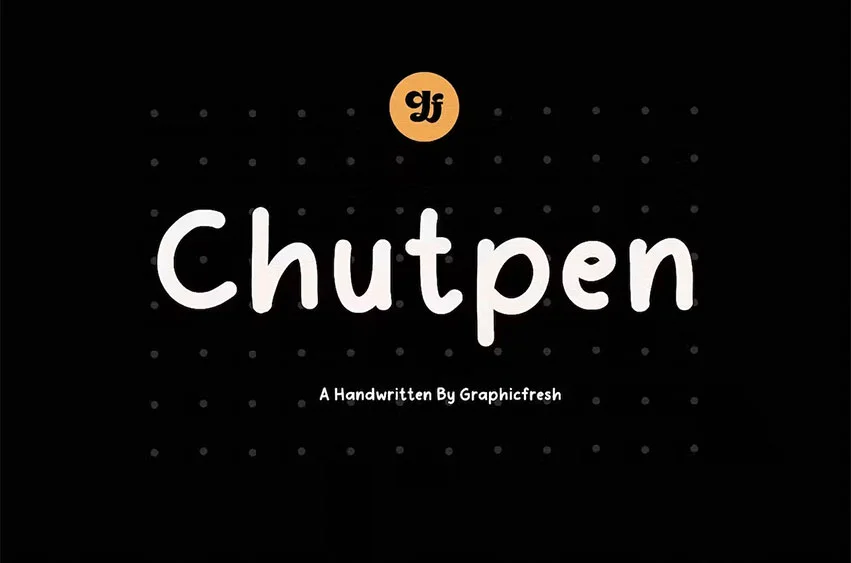
Chutpen Font The Handwriting Editorial Font. Introducing our latest product, the Handcrafted Elegance font collection, designed specifically for the editorial industry. This meticulously crafted assortment of hand-drawn fonts brings a perfect blend of classic charm and modern sophistication to your magazine projects.
Immerse yourself in the artistry of authentic handwriting with these exquisite fonts, meticulously created to replicate the organic flow and elegance of hand-drawn typography. Each letter bears the unmistakable touch of human craftsmanship, lending a unique and personal feel to your editorial designs.
With their versatility and timeless appeal, our hand-drawn fonts are the ideal choice for all your editorial needs. Whether you’re creating captivating headlines, stylish subheadings, or engaging body text, these fonts effortlessly elevate the visual impact of your magazine, setting it apart as a symbol of elegance and refinement.